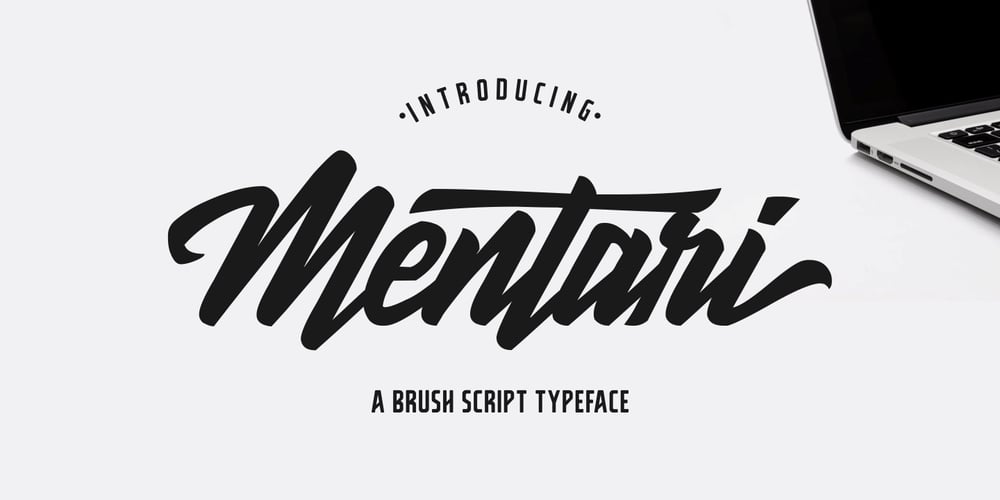
Mentari Font Family was designed by Adil Budianto and published by Surotype. Mentari contains 1 styles and family package options. Mentari a brush script typeface, bold and elegant, with several alternate characters in each letter to give you ease in accomplishing the work of typographic such as logotype, poster, headline, T-shirt and other creative projects.